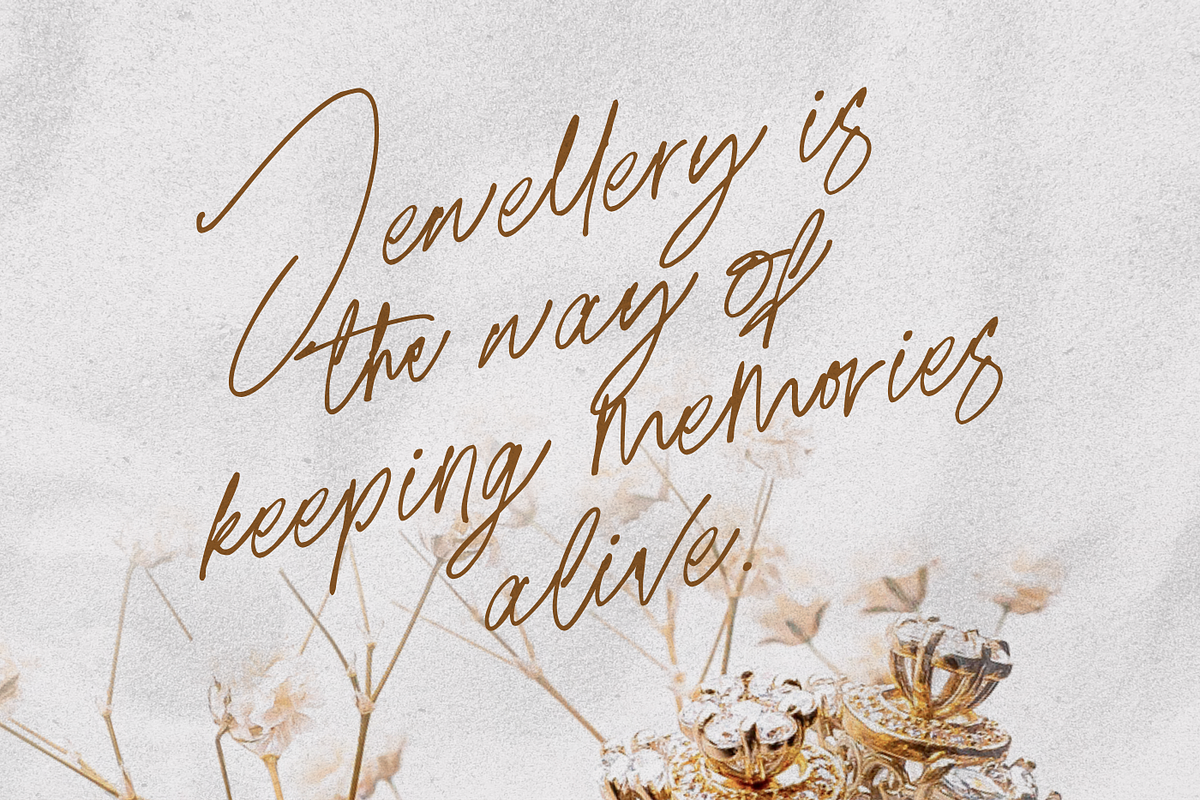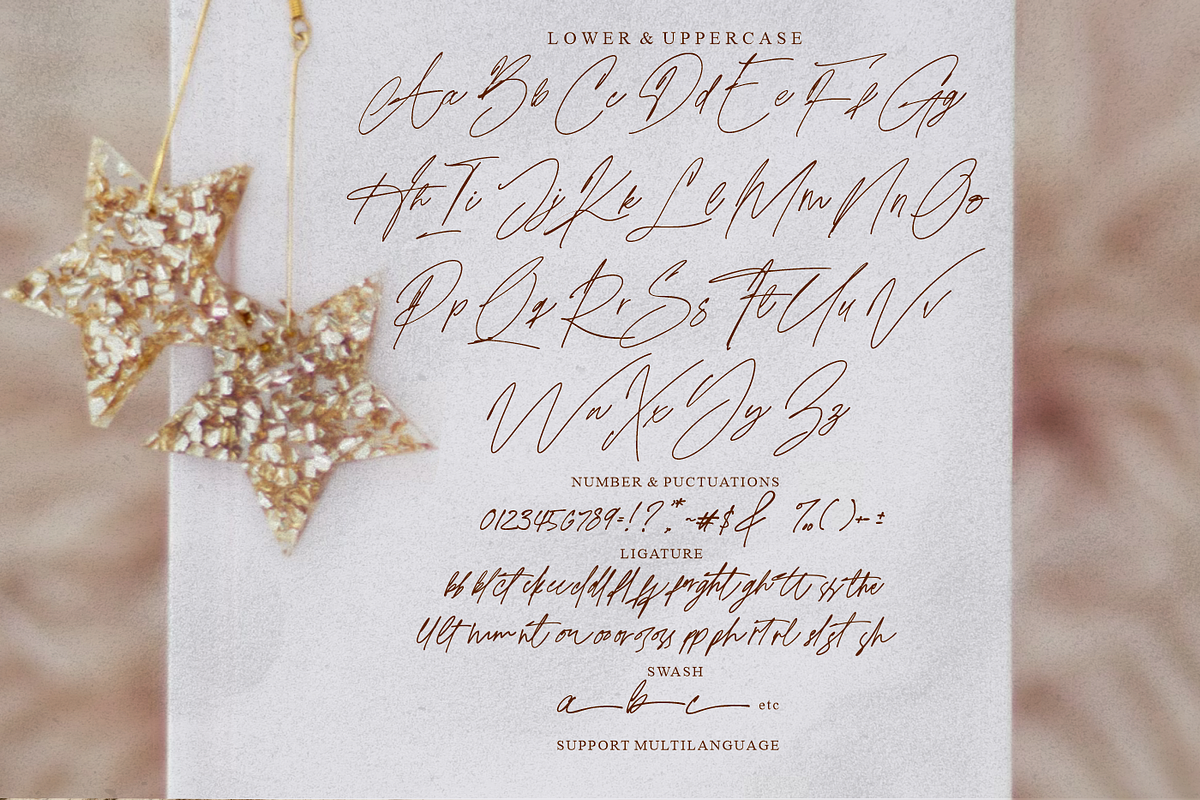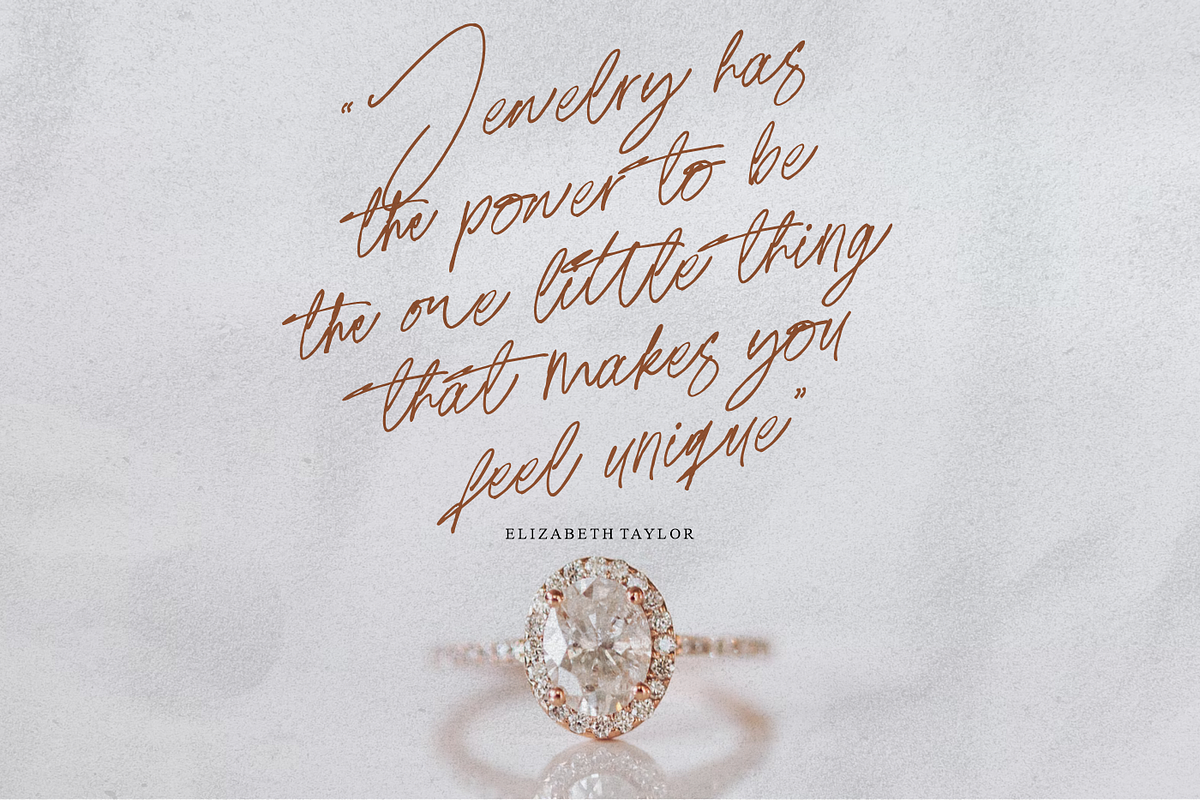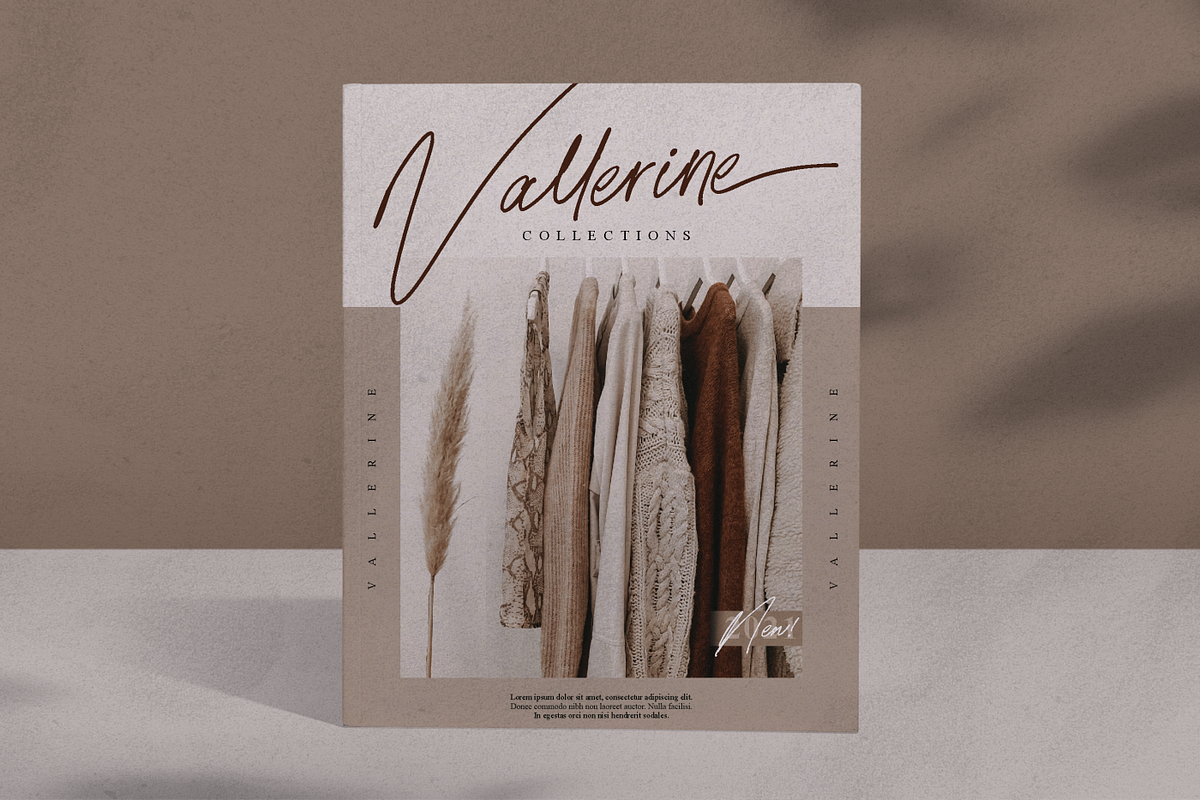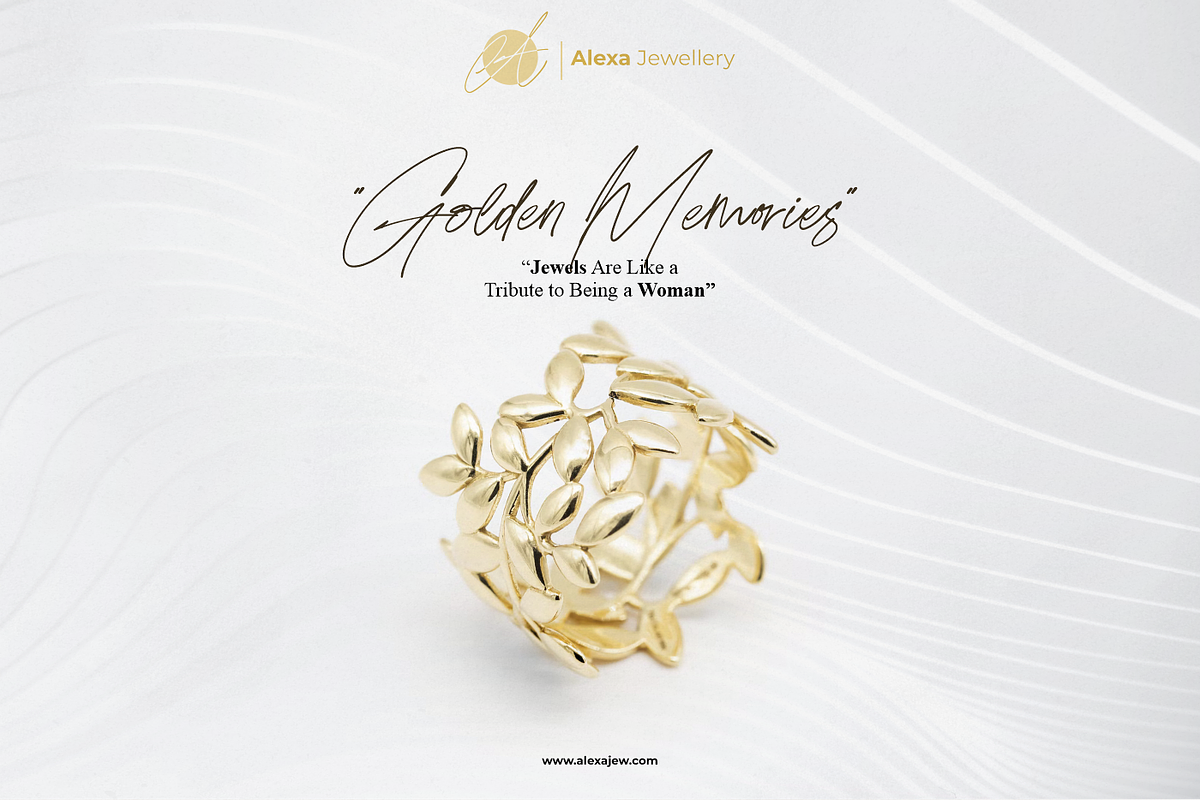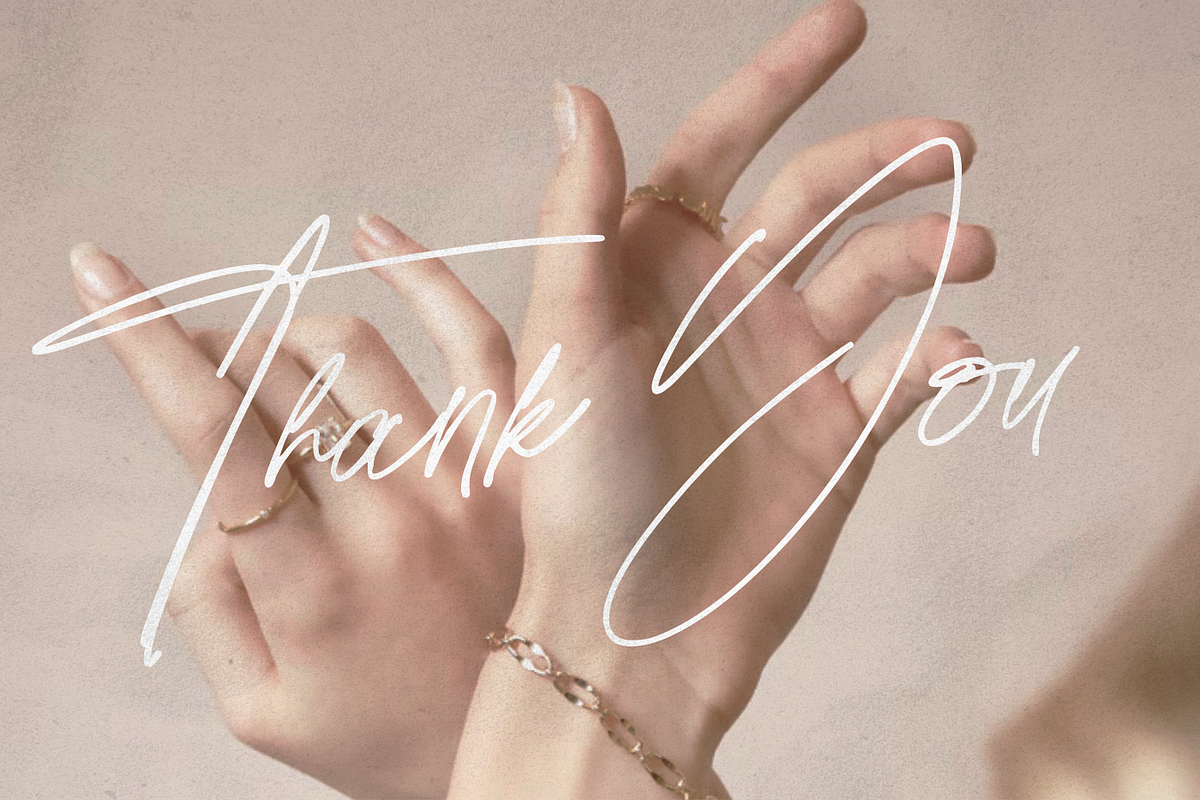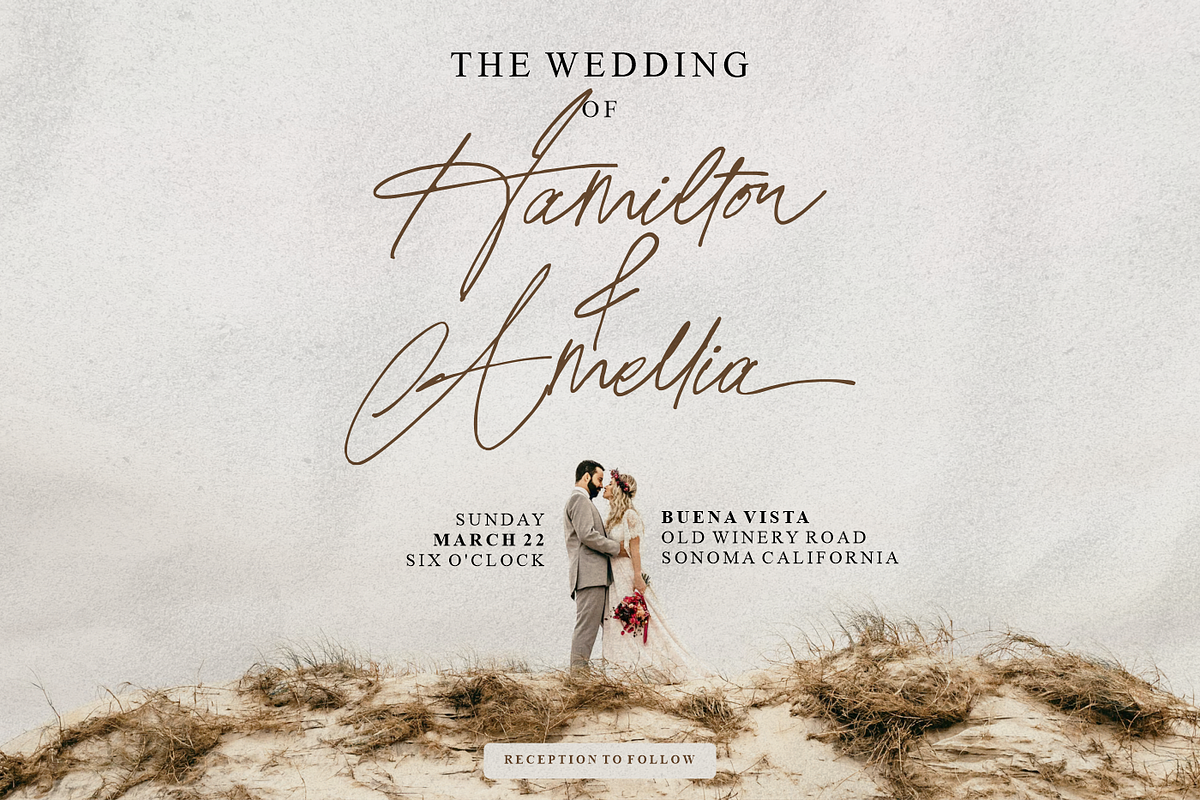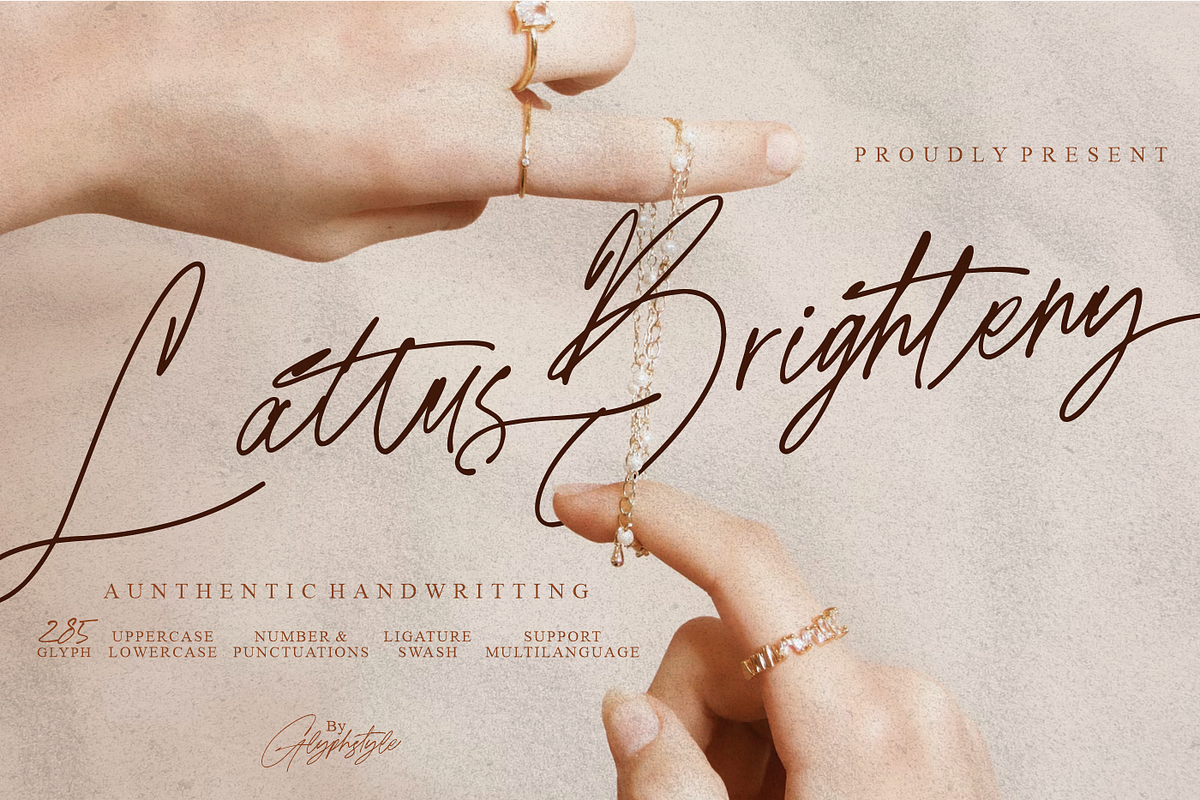
Lattus Brighteny Handwritting
Lattus Brighteny is a font with ink effect & natural flow. there are several ligatures that make the combination of letters more beautiful. Handwritten original font that looks luxurious and beautiful.
Lattus Brighteny is perfect for branding projects, logos, wedding designs, social media posts, advertisements, product packaging, product designs, labels, photography, watermarks, invitations, stationery, and any project that requires a sense of handwritten signature.
- Font feature
Uppercase, Lowercase, Numerals & Punctuations, Swash (ending swash) Ligature, Multilanguage